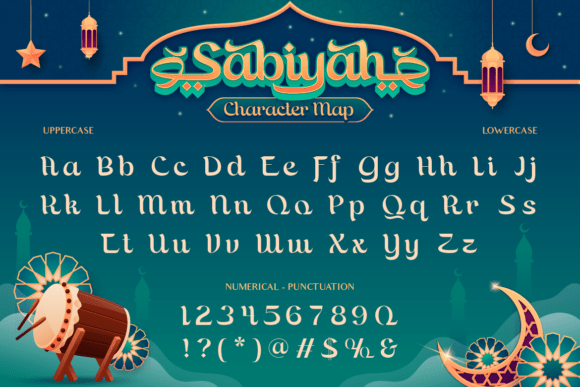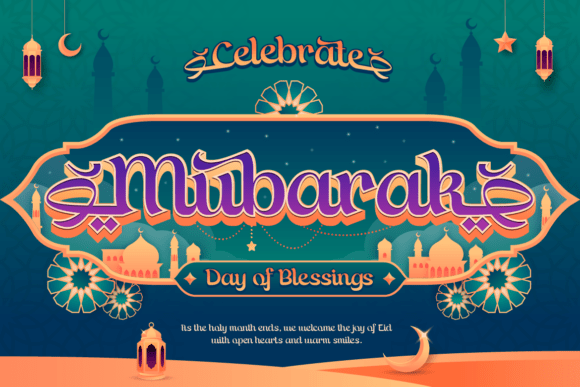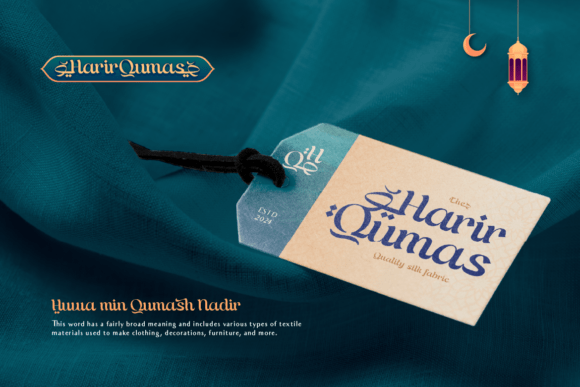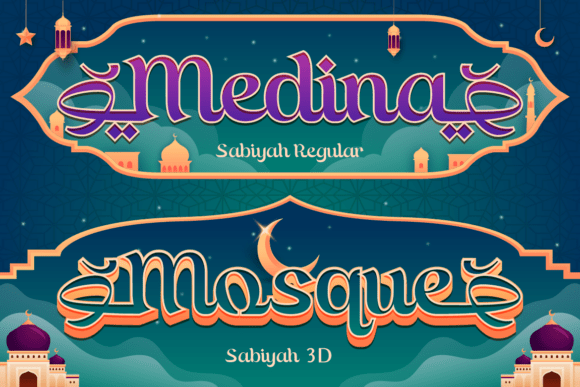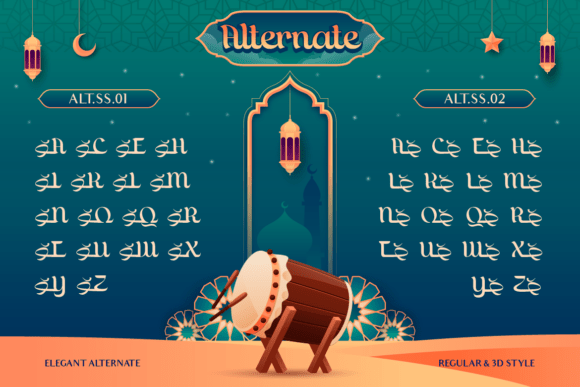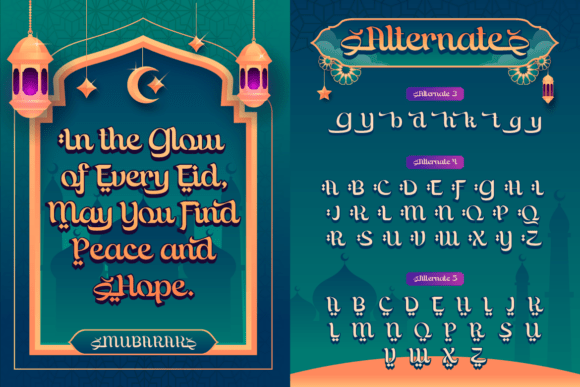
Introduction to Sabiyah Font
Sabiyah is a modern Arabic-inspired display font that brings festive vibes to your designs.
With its bold strokes and smooth curves, this font feels perfect for Ramadan, Eid celebrations, Islamic events, or even branding that wants a touch of cultural elegance It comes in two stylesโRegular and 3D Styleโso you can mix and match depending on the mood.
Key Features of Sabiyah Font